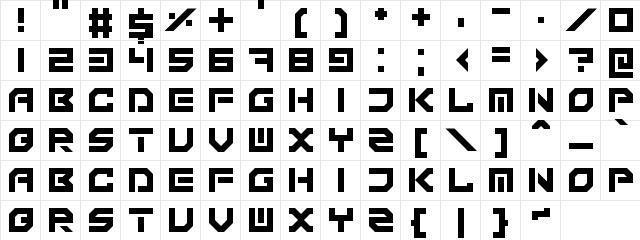
Technonomicon Regular
| Designer | Darrell Flood |
Design Context for Technonomicon Typeface
Technonomicon has a distinctly futuristic character, with geometric precision and clean angles that feel at home in technology, gaming, and sci-fi contexts.
Pro Tip: Use Technonomicon in combination with a neutral sans for body text. Let it define the brand voice in headlines while keeping reading comfortable elsewhere.